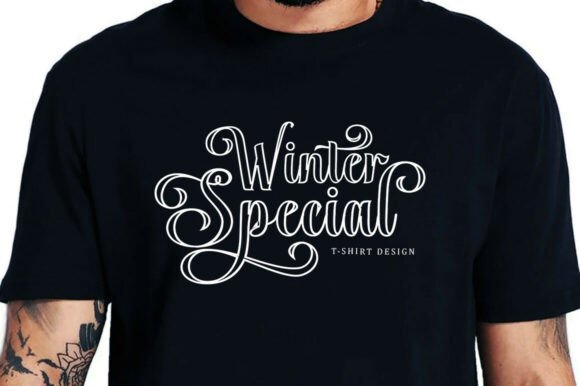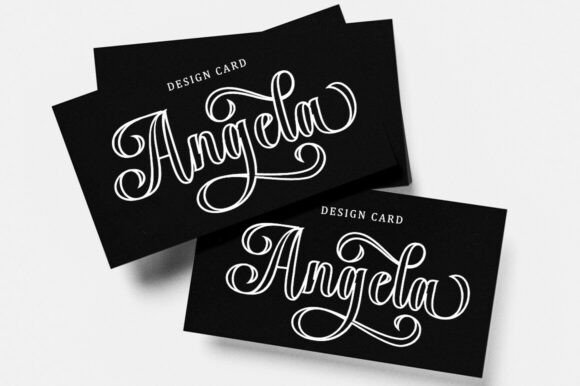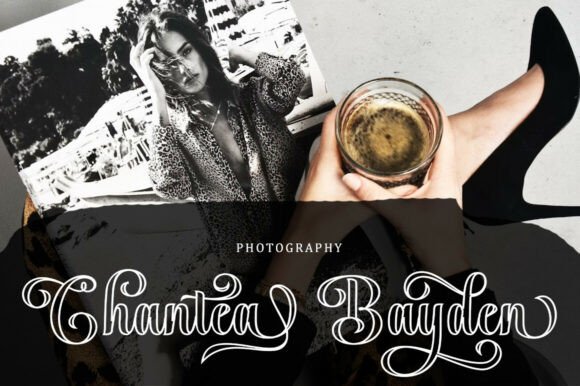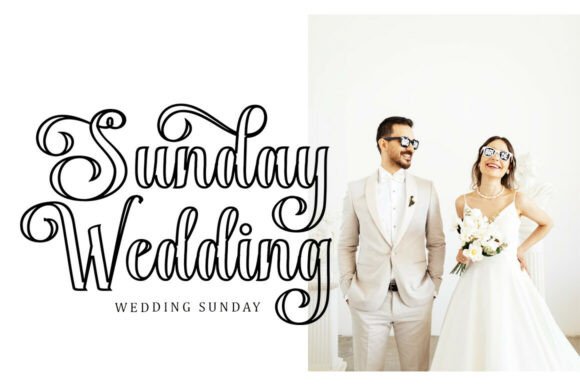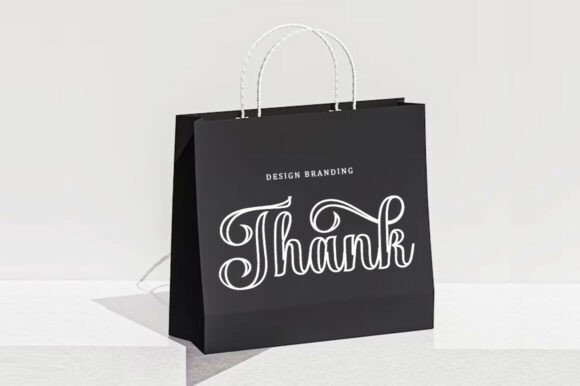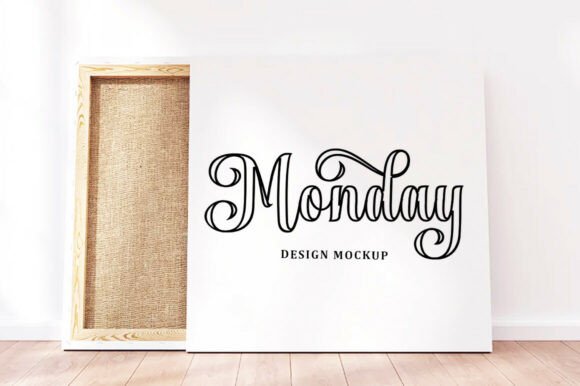
Introduction to Kayla Maston Font
As a designer, there’s nothing quite like the thrill of landing on the perfect font for a creative project. The moment you find that elusive combination of style and sophistication is pure magic. And for those who specialize in romantic and elegant designs, the search is often a long one. But what if I told you there’s a font that checks all the right boxes? Enter the stunning Kayla Maston Font, a beautiful outline font that brings a touch of calligraphy to your designs.
With its gorgeous alternate characters and elegant style, Kayla Maston Font is the perfect design resource for those seeking a sophisticated and romantic look. Whether you’re working on a wedding invitation, a branding project, or a blog title, this font is sure to elevate your designs to the next level. And the best part? It’s a high-quality font that’s available for free download, making it an absolute gem for designers on a budget.
- Designed with a modern and elegant aesthetic, perfect for use in graphic design, digital art, and publishing projects.
- Unique characteristic: The Kayla Maston Font features a unique blend of modern and vintage elements, making it stand out from other fonts in its class.
Honest Review: Kayla Maston Font
One of the standout features of the Kayla Maston Font is its transparent background, which makes it perfect for use on top of images or other design elements. This feature has opened up a world of creative possibilities for me, and I’ve already used it in several design projects.
Tips and Use Cases
Some common use cases for the Kayla Maston Font include creating social media graphics, logos, and marketing materials. To get the most out of this font, use it in conjunction with other design elements to create a cohesive look. You can also experiment with different font sizes and styles to achieve the desired effect.